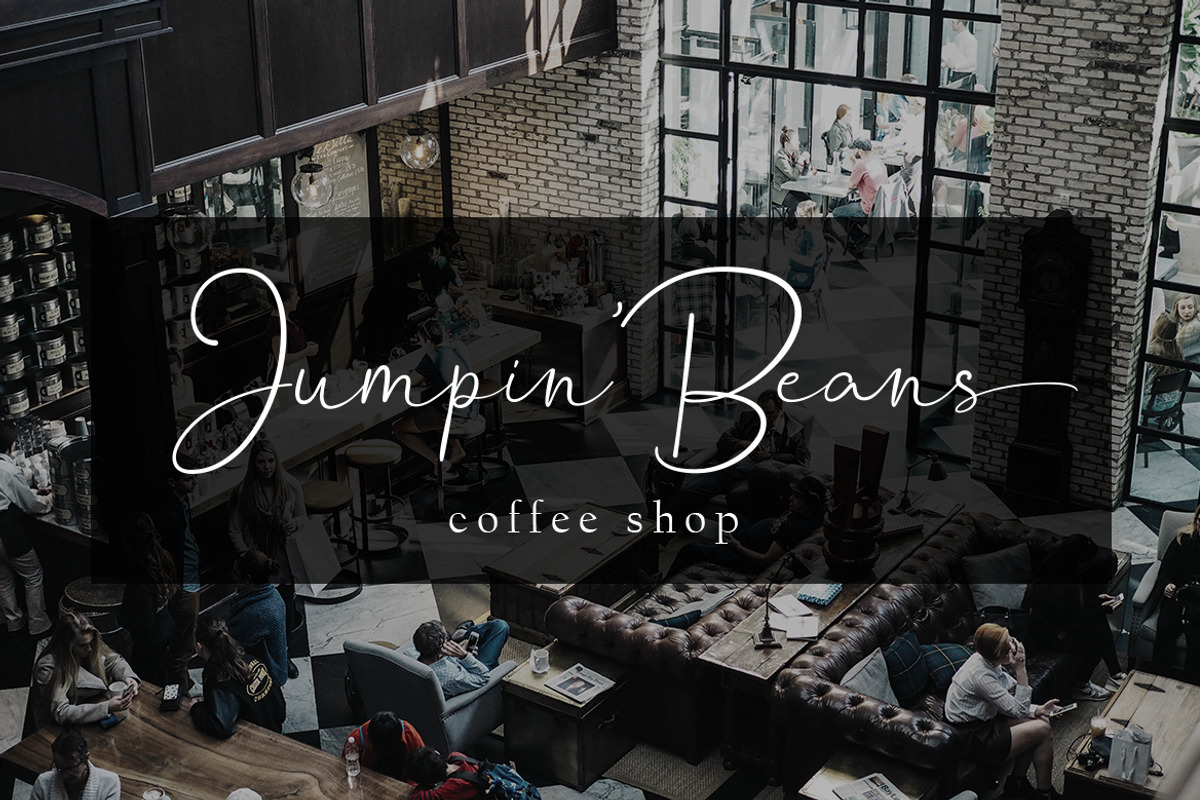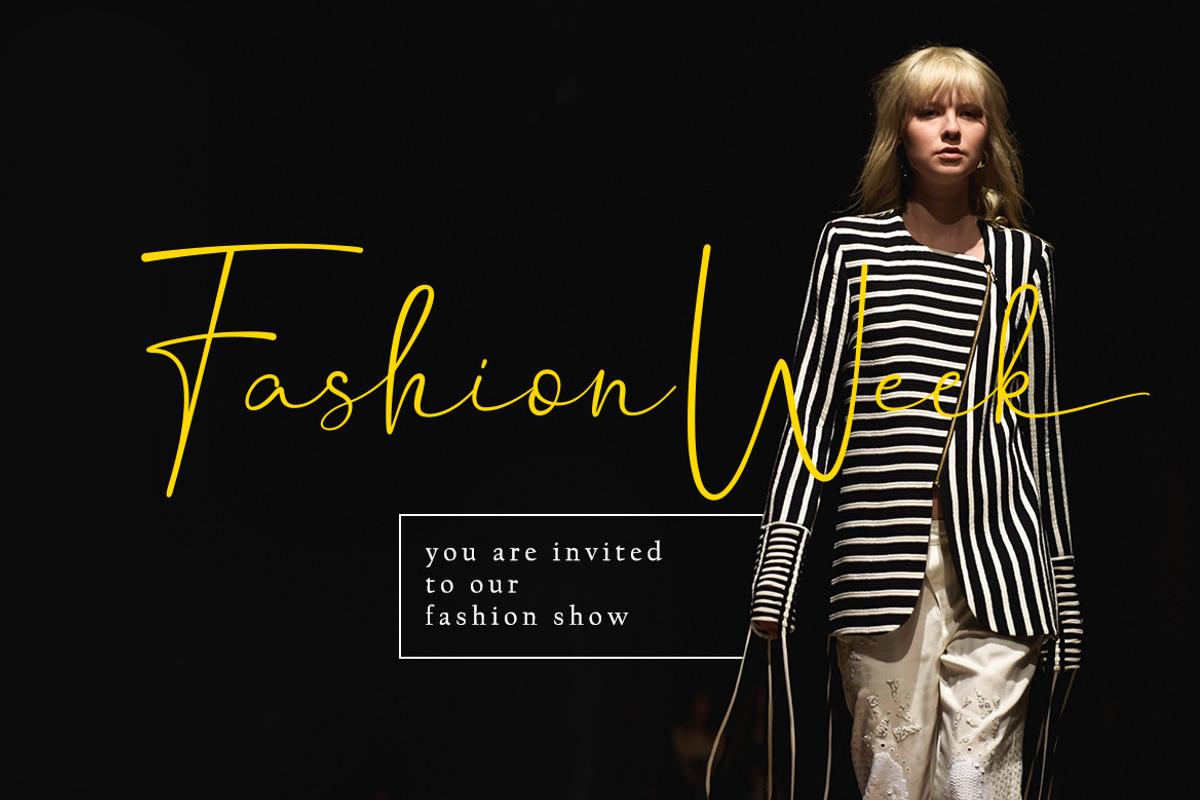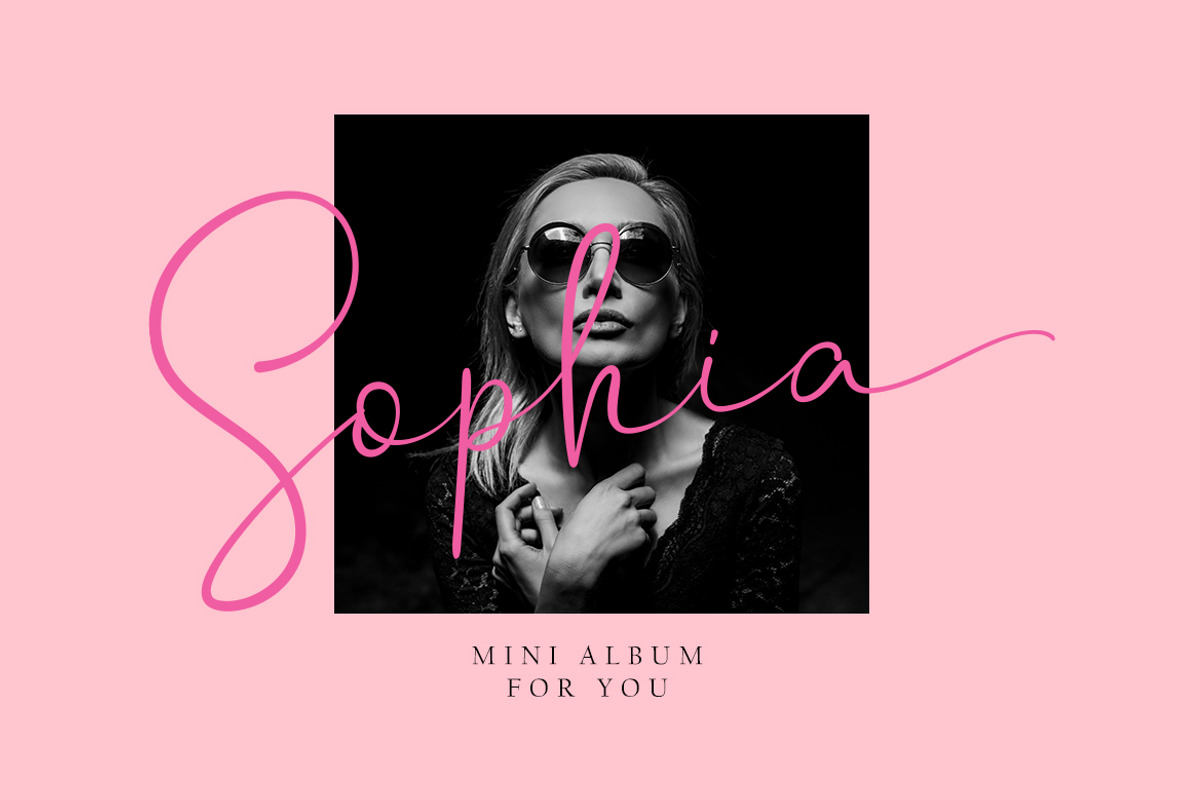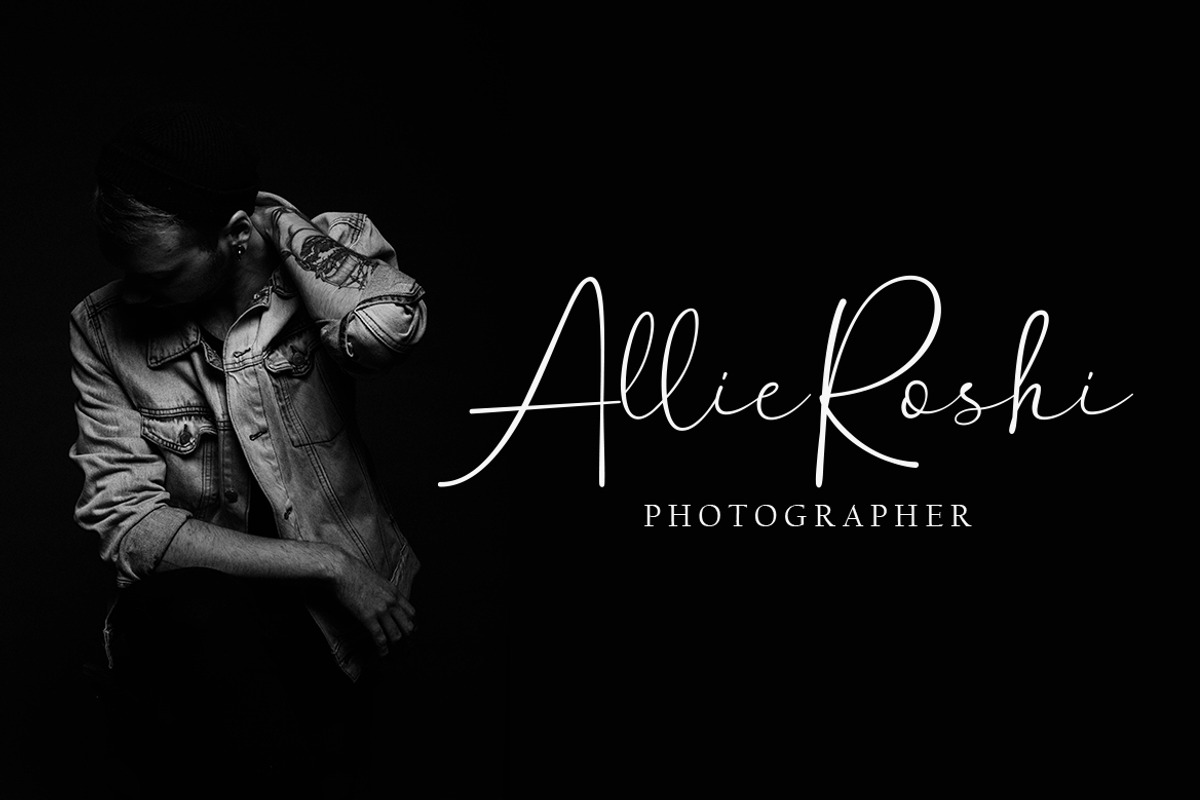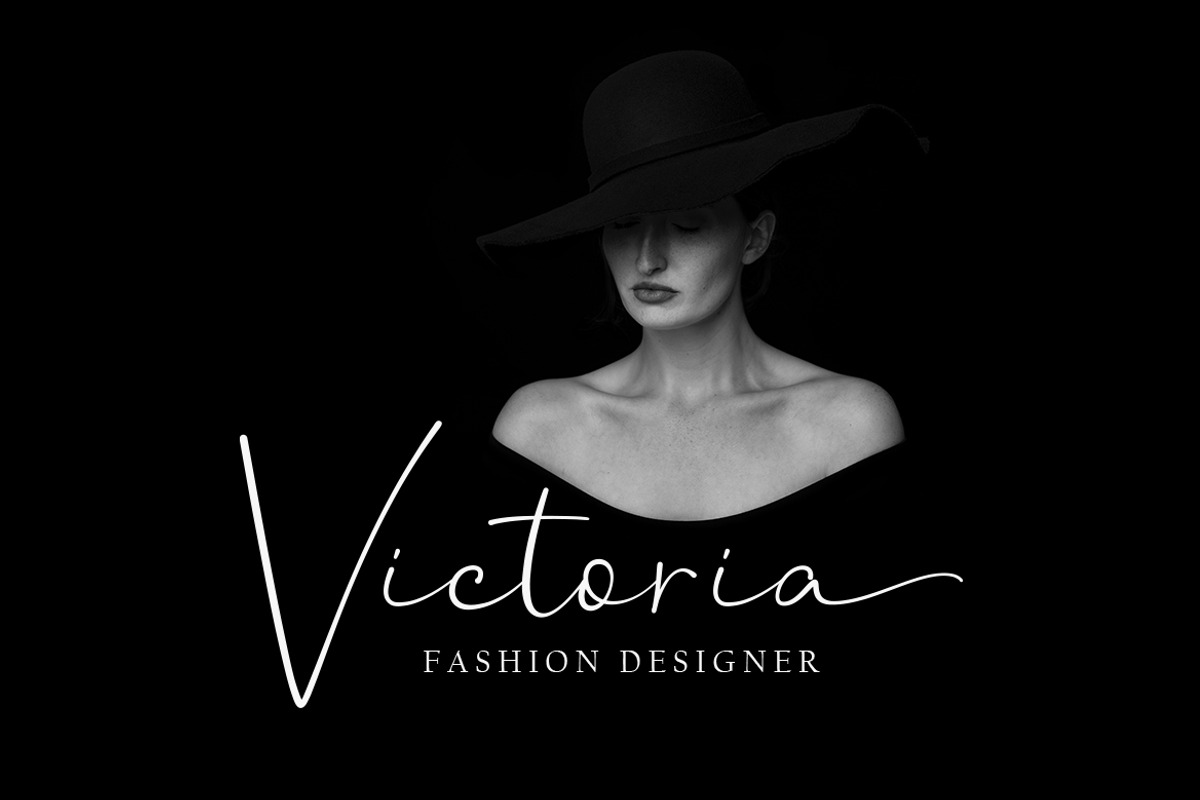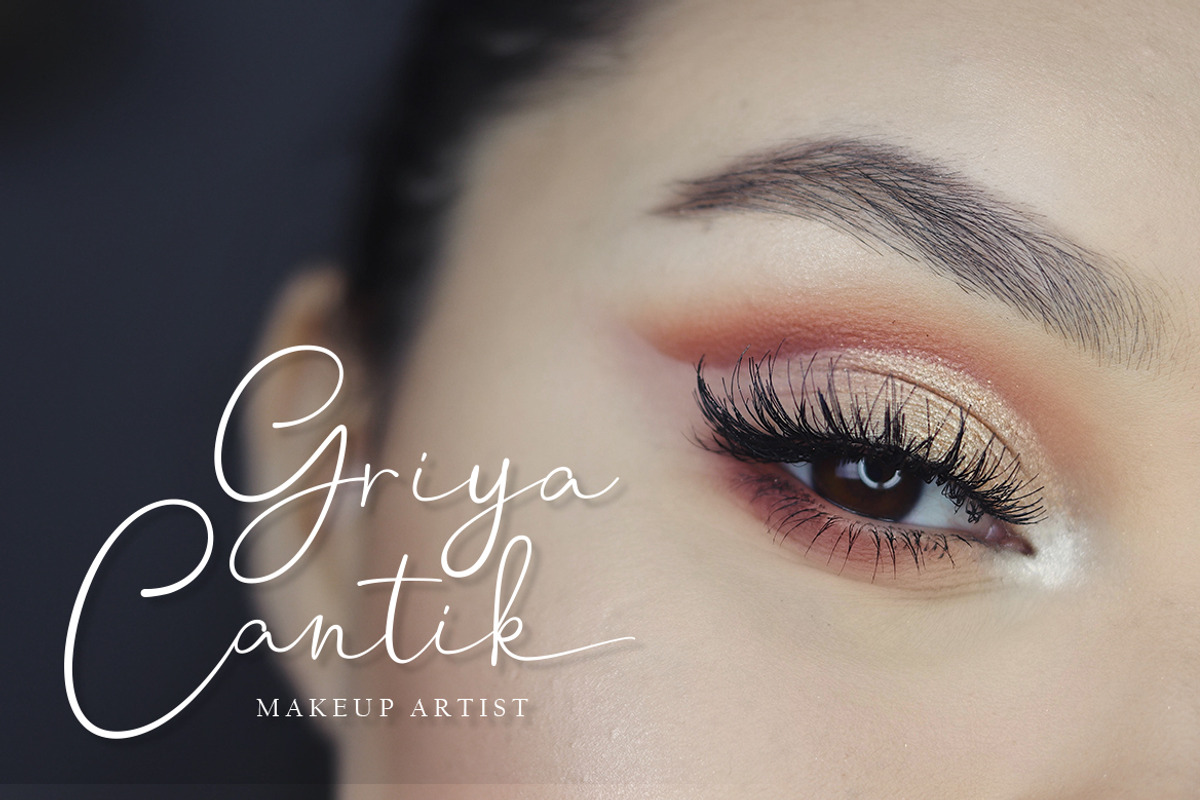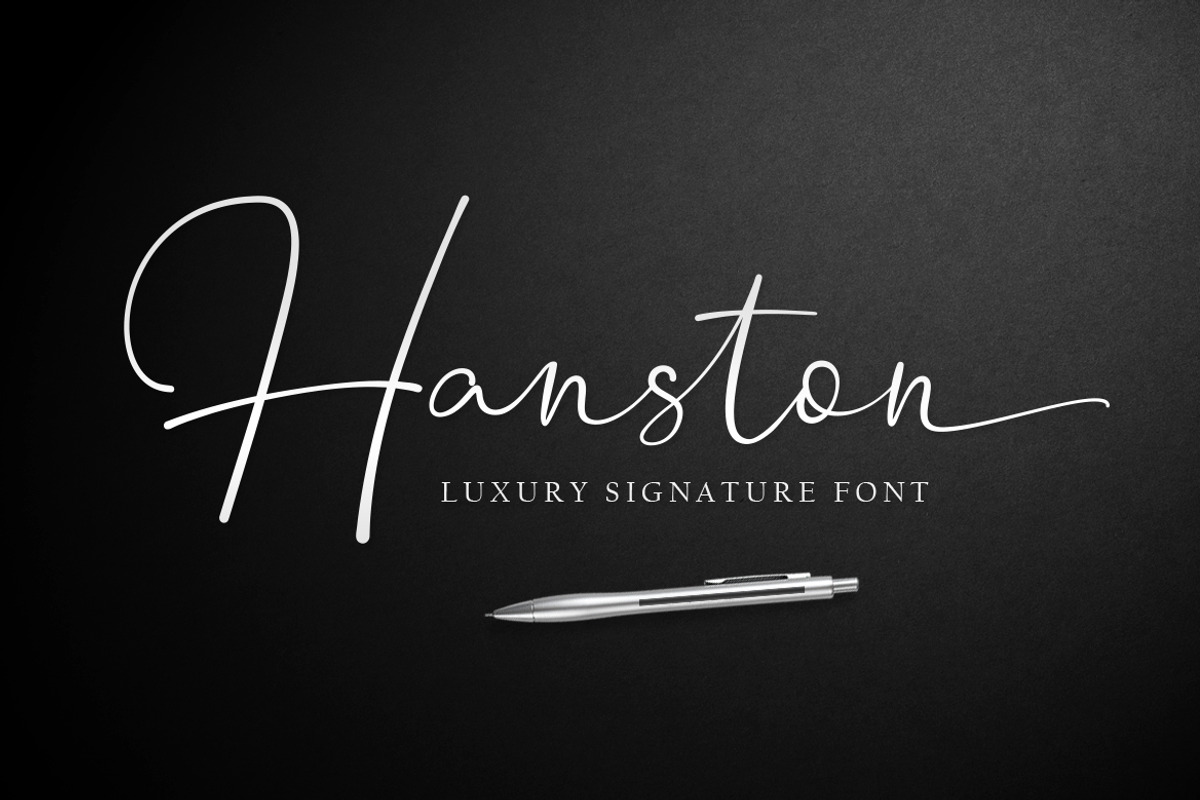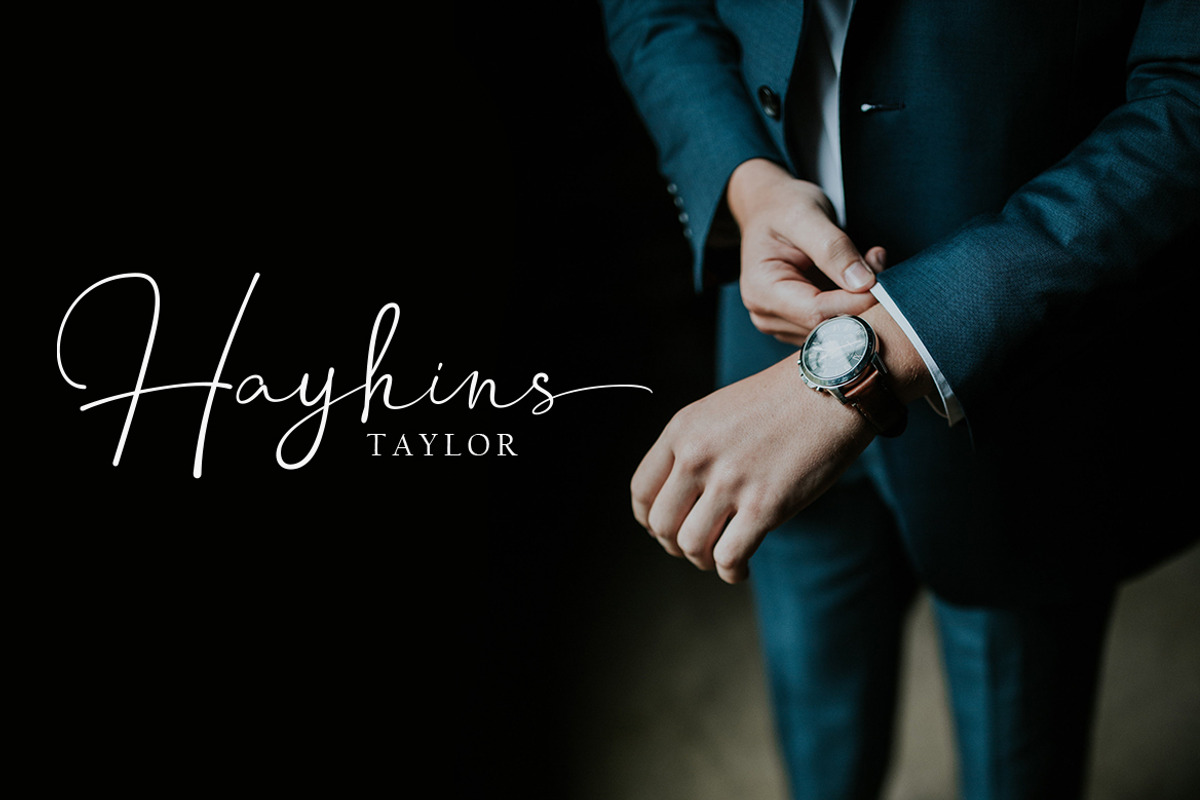
Hanston | Signature Font
Introducing Hanston Luxury Signature Font.
A font with a touch of modern calligraphy are useful to beautify every sentence written.
Hanston is built with opentype features with additional much ligatures and swash at the end so it makes it look natural as written by hand.
With various ligatures, thus making it more varied. With modern calligraphy style for your daily and project needs ex: logo, fashion, label, photography watermark, quotes, blog header, poster, wedding, invitation, stationery, branding, letter, etc.
- Ligatures and alternates.
- Multilingual support.